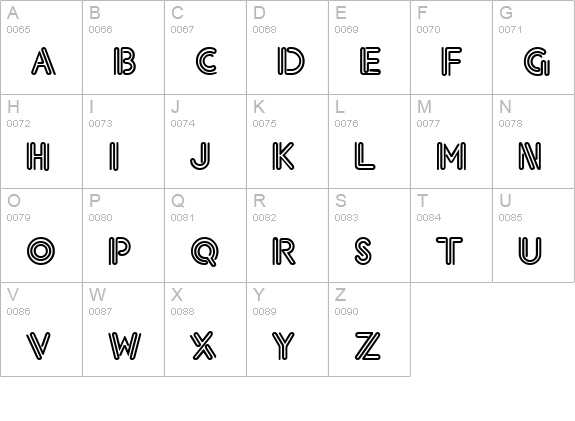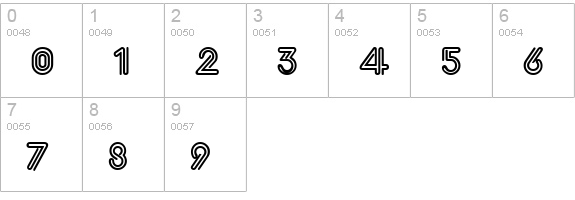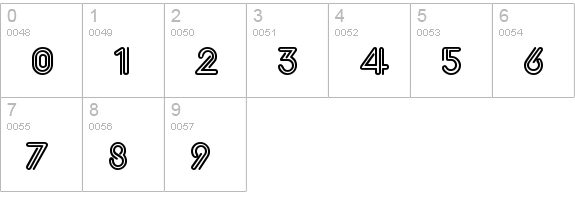
Neon Thick Font Details
Introducing Neon Thick font, a bold and vibrant typeface that exudes a modern and eye-catching aesthetic. With its sleek lines and dynamic curves, this font is perfect for making a statement in any design project. The Neon Thick font is free to use and is now available for download at FontsMarket.com. Whether you're creating posters, logos, or social media graphics, this font will add a touch of electric energy to your designs. Stand out from the crowd and elevate your projects with the striking Neon Thick font. Download it today and let your creativity shine!